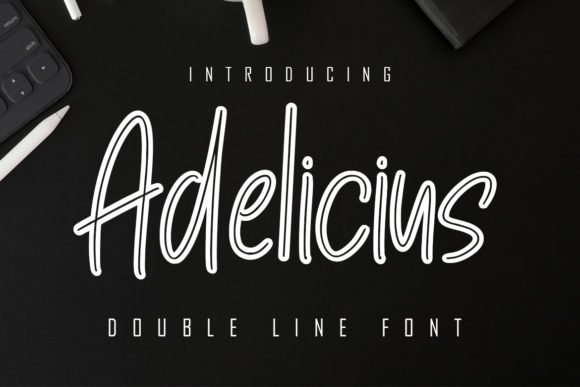
Journey through the world of fashion with Adelicius, a display font crafted with elegance and style. Let your creativity soar as you explore this captivating collection, designed exclusively for the fashion industry. Each character exudes a sense of sophistication, transforming your designs into masterpieces.
Adelicius is meticulously engineered to capture the essence of fashion, with smooth curves and sharp edges that blend seamlessly. Its versatility extends beyond traditional boundaries, effortlessly enhancing logos, posters, magazine covers, and social media posts. Embrace the power of Adelicius to elevate your creations, captivating your audience with a visual symphony.
Immerse yourself in a world where fashion and typography unite. Adelicius transcends the ordinary, injecting your projects with a touch of luxury and innovation. Experience the allure of this font, meticulously designed to make your designs shine brighter than ever before.
Dare to be different, embrace the unconventional, and let Adelicius elevate your creations to new heights. Step into the spotlight, leaving your mark on the world of fashion with this remarkable display font.